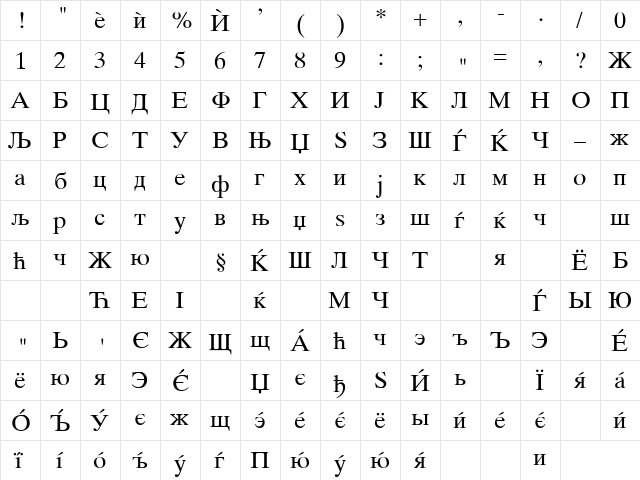
Makedonski Tajms Regular
Design Context for Makedonski Tajms Typeface
Makedonski Tajms takes a measured approach to typography — its balanced proportions and neutral character make it a reliable workhorse for both digital and print work.